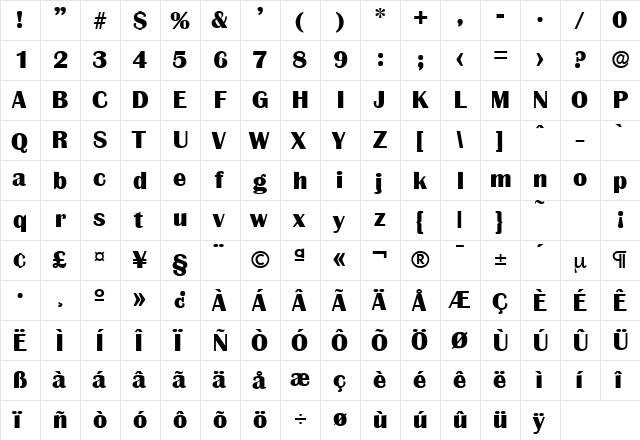
Grenoble-Serial-ExtraBold Regular
Design Context for Grenoble-Serial-ExtraBold Typeface
Grenoble-Serial-ExtraBold takes a measured approach to typography — its balanced proportions and neutral character make it a reliable workhorse for both digital and print work. Its bold stroke weight gives it real presence on the page.
Pro Tip: Use Grenoble-Serial-ExtraBold in both headline and body roles to test its range before committing to a single application.